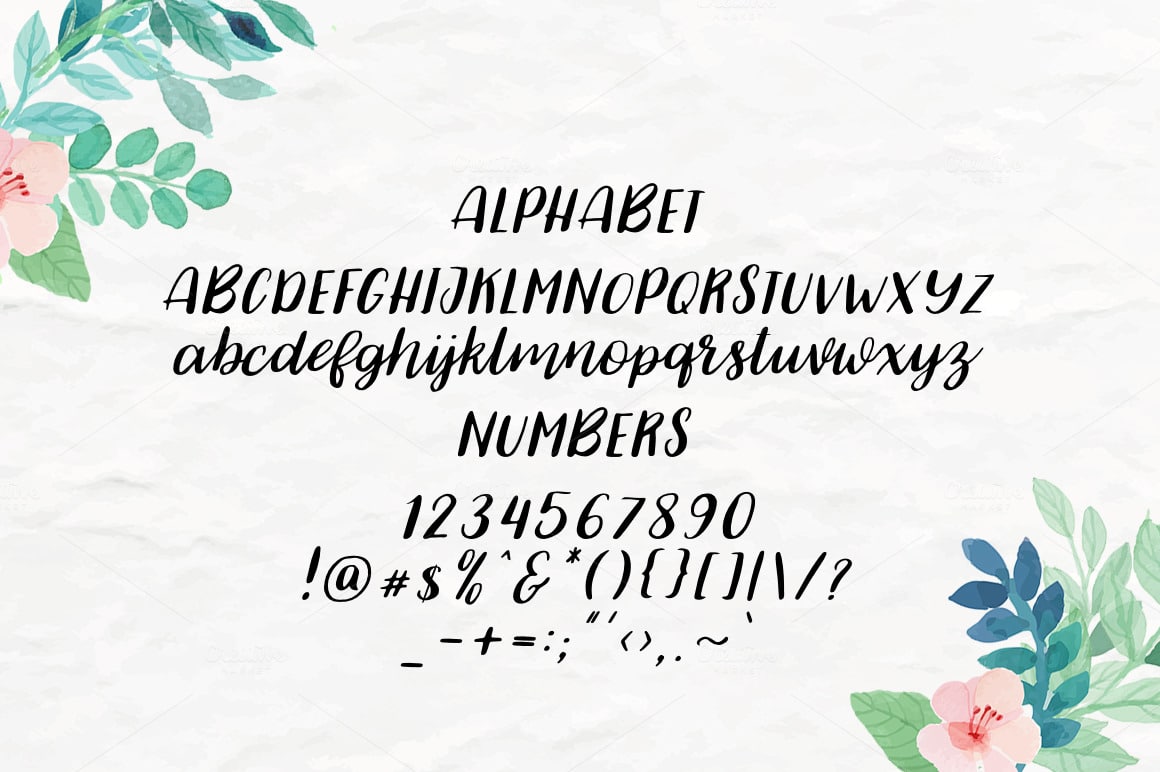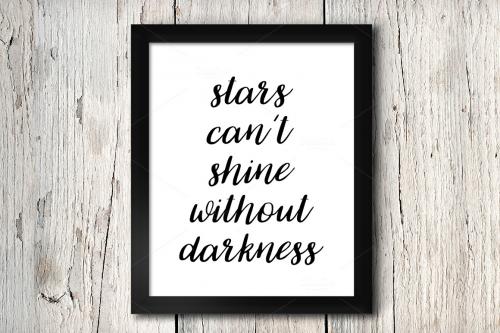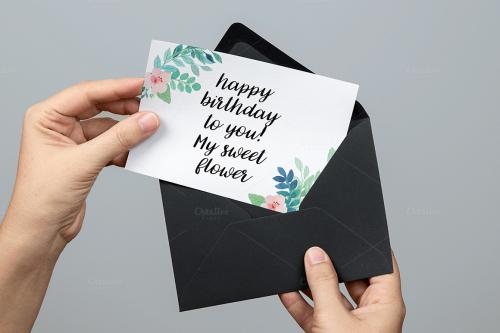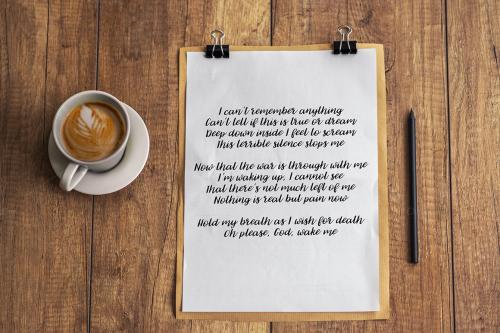
Jasmine Script Font is a new fabulously fun yet elegant handlettered script font, allowing you to create beautiful hand-made typography, greeting cards, branding materials, business cards, quotes, posters, and more!
Jasmine – includes many alternative characters.Is coded with PUA Unicode, which allows full access to all the extra characters without having special designing software. Mac users can use Font Book. Windows users can use Character Map to view and copy any of the extra characters to paste into your favourite text editor. For folks who have opentype capable software : The alternates are accessible by turning on “Stylistic Alternates” and “Ligatures” buttons on in Photoshop’s Character panel, or via any software with a glyphs panel, e.g. Adobe Illustrator, Photoshop CC, Inkscape.